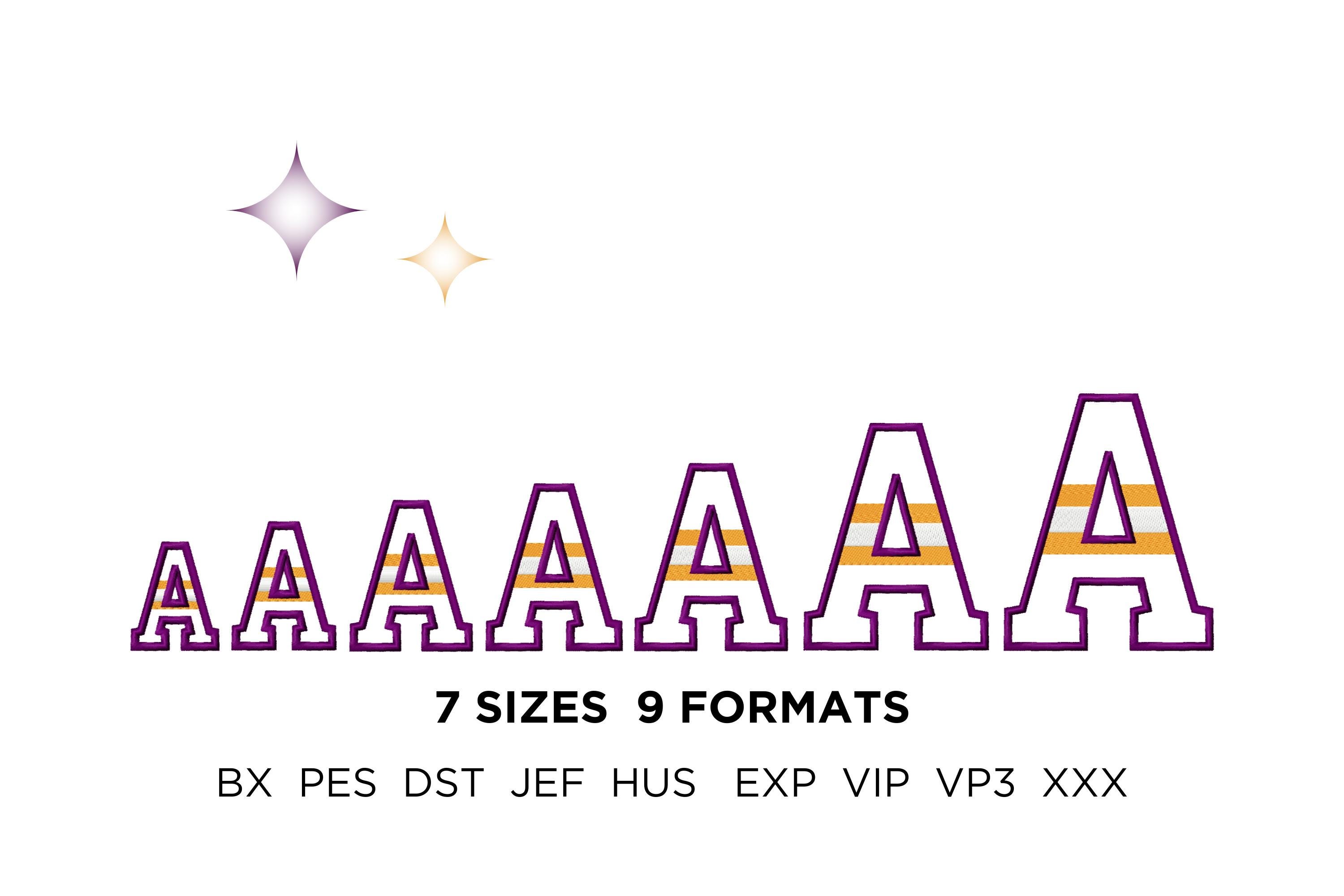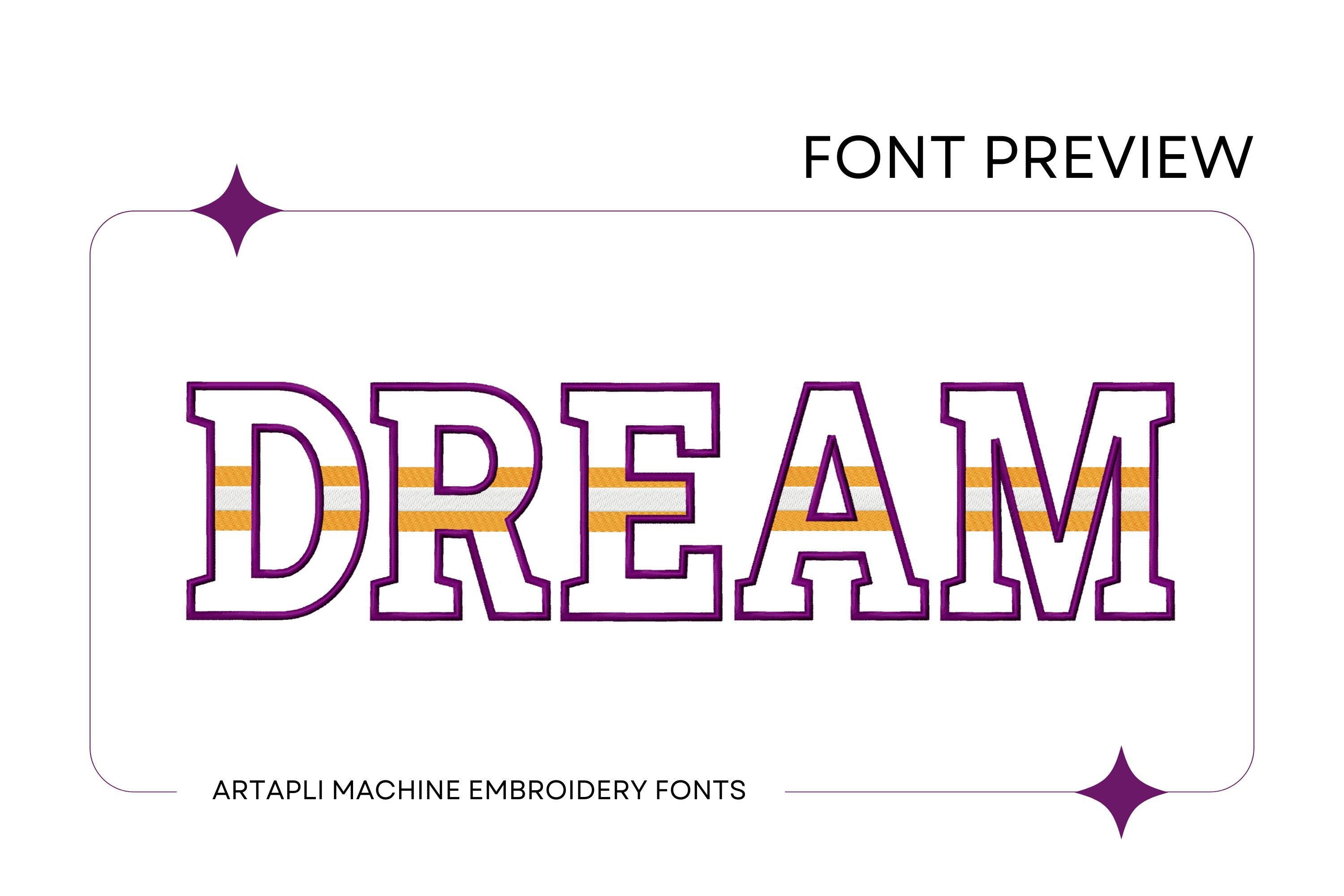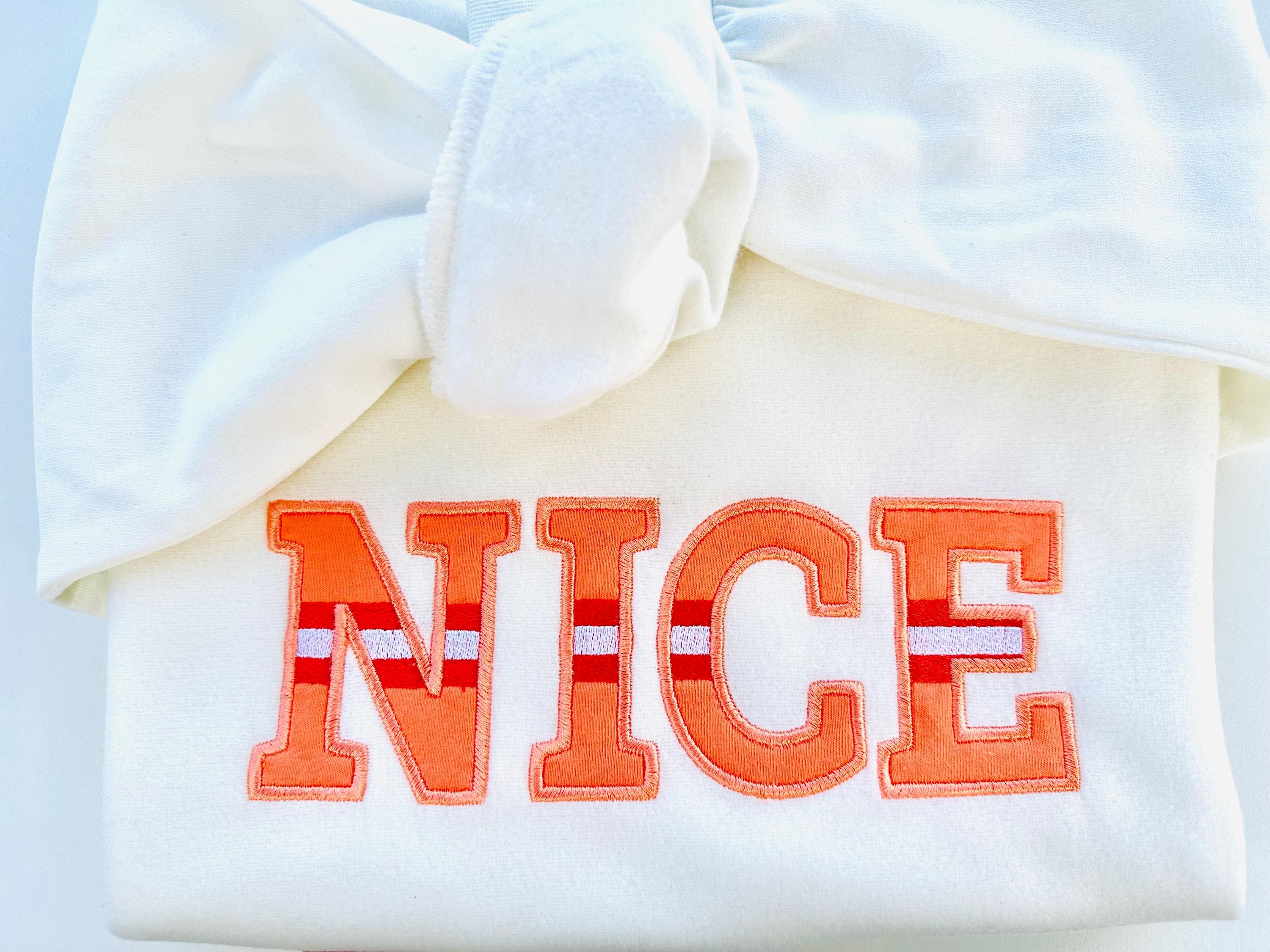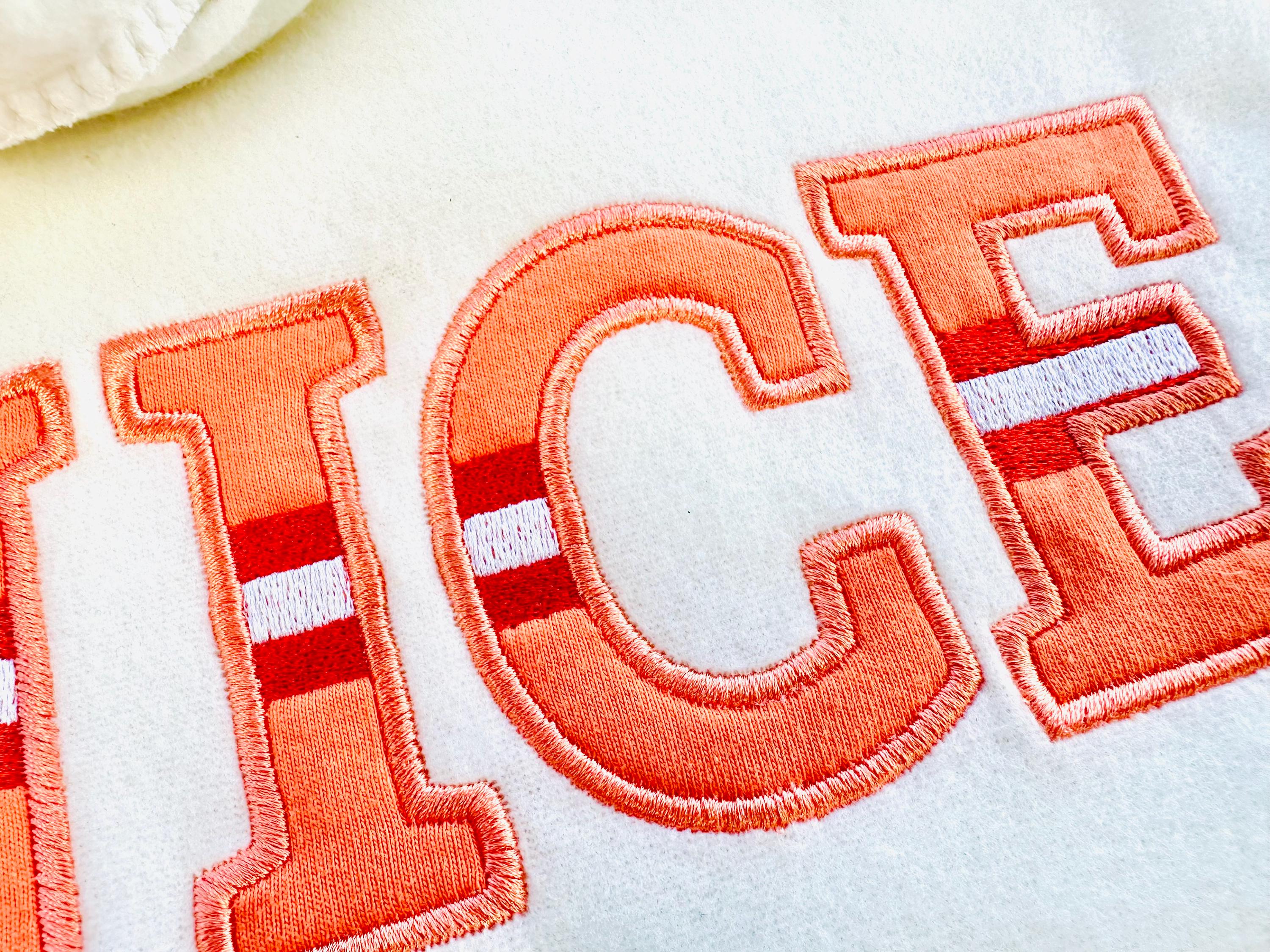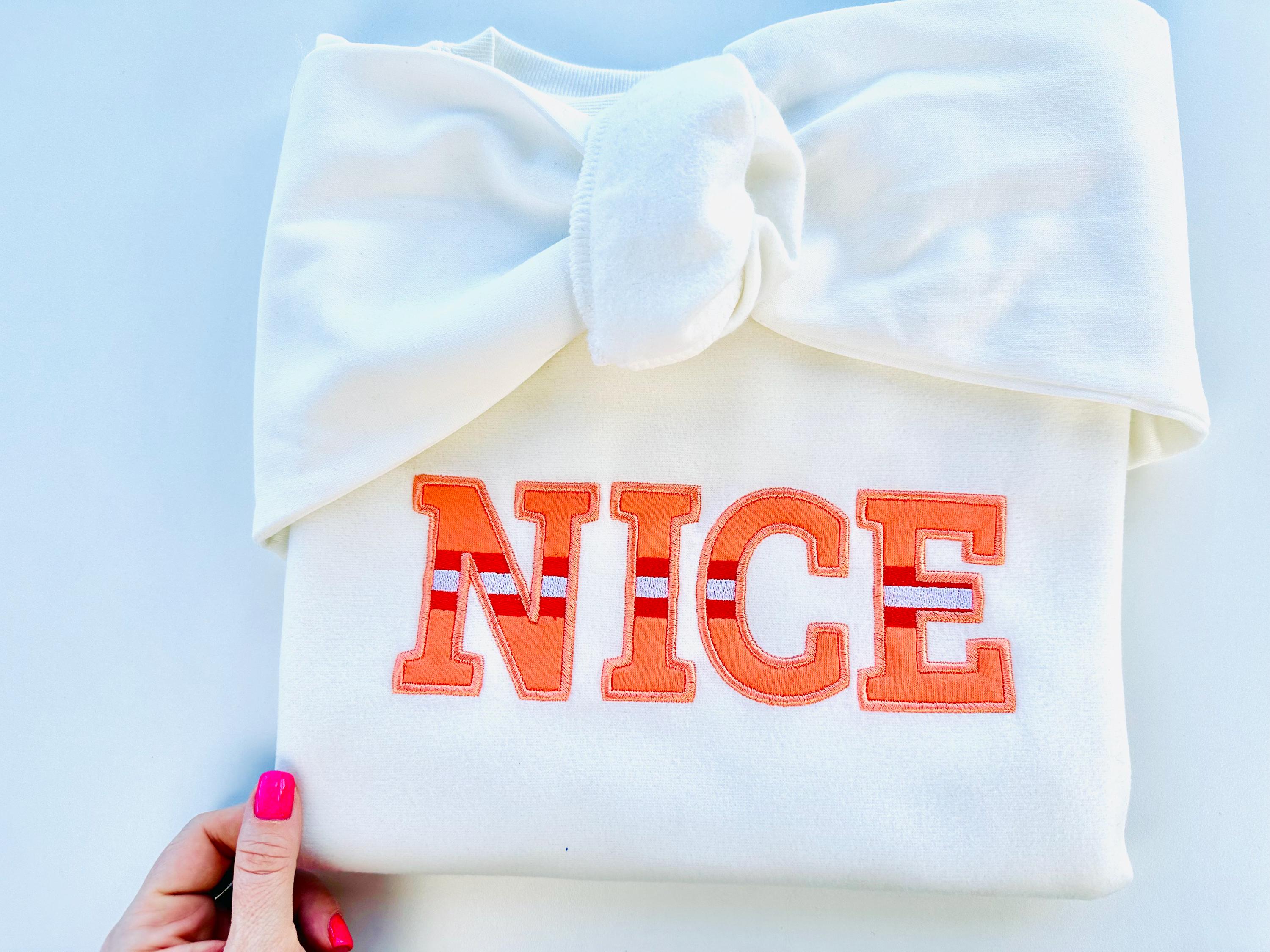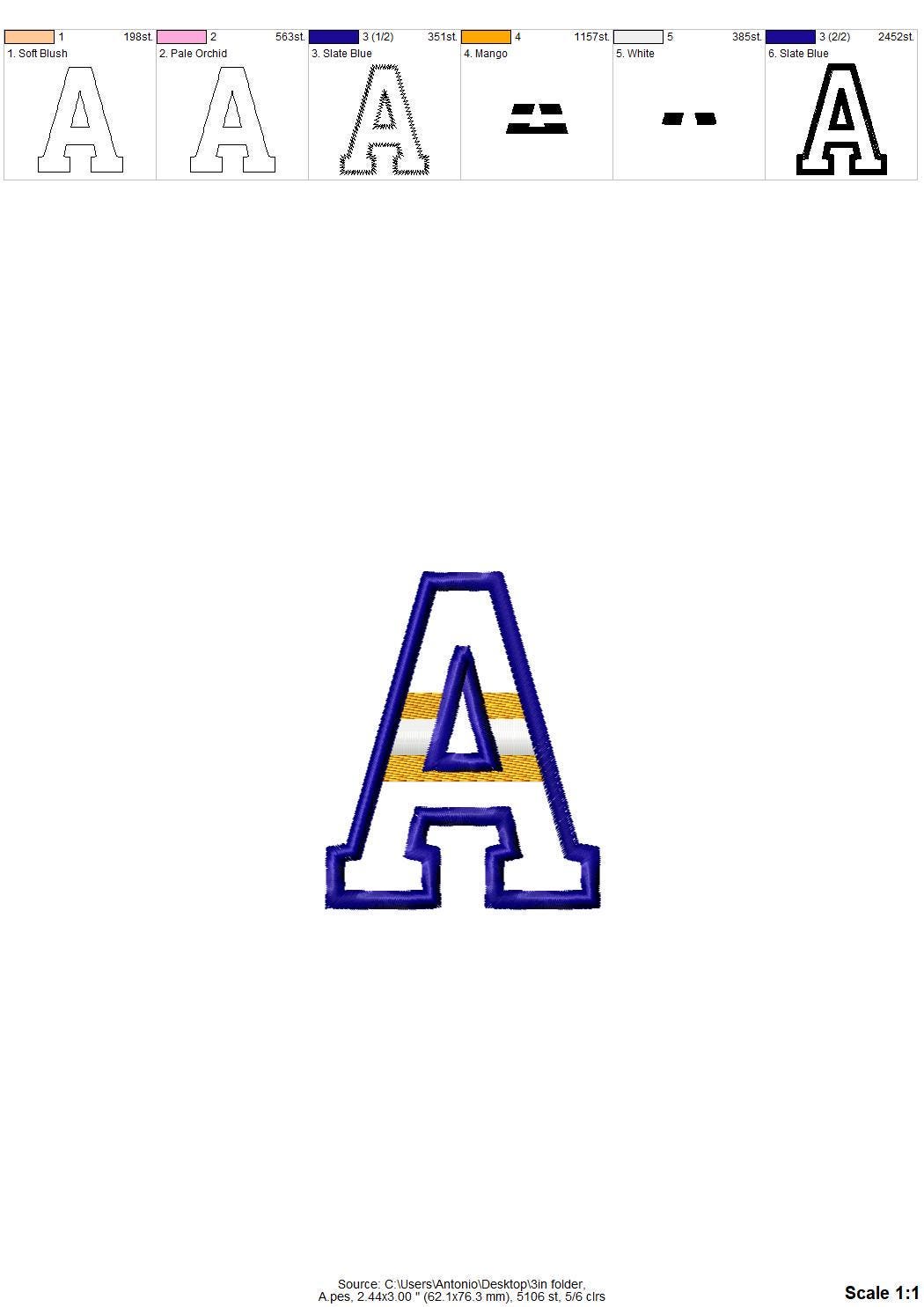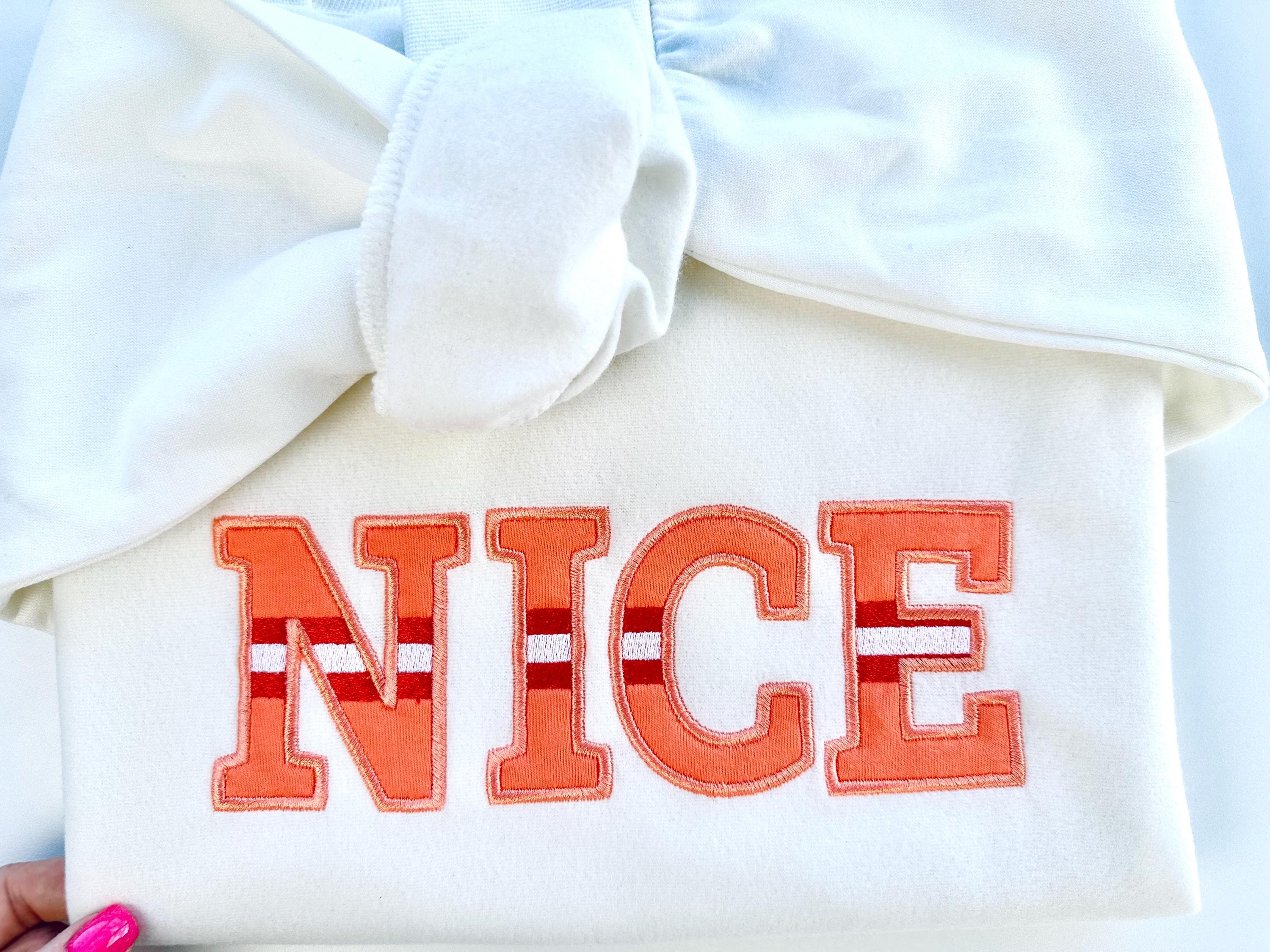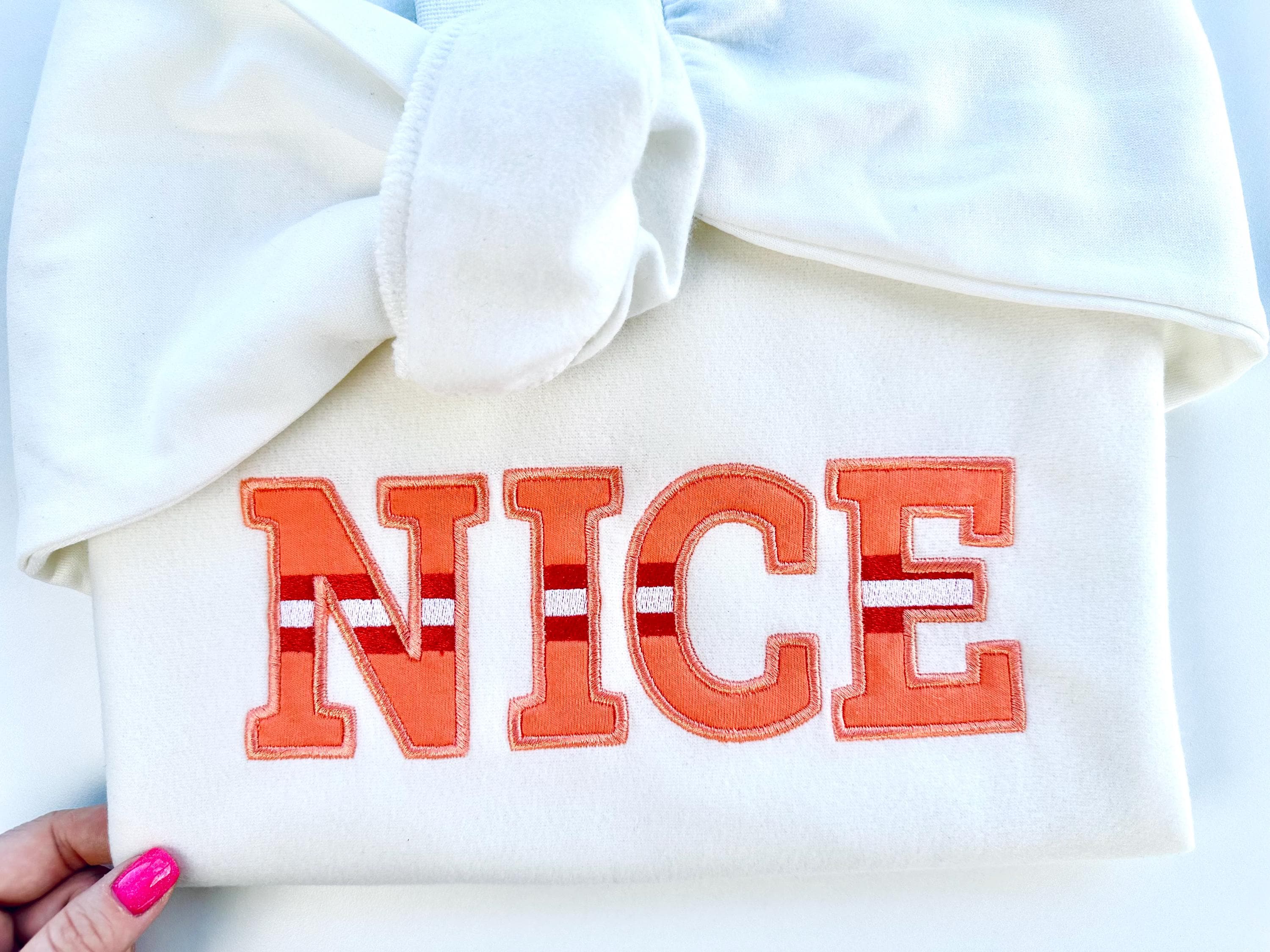
Striped FONT Applique Sports stripes alphabet monogram letters Block Font machine embroidery designs many sizes 2.2 up to 5 inches and BX
Entire alphabet capital letters A-Z.
Awesome sports alphabet is appliqué design, and has fill stitched stripes and a nice satin stitch outline.